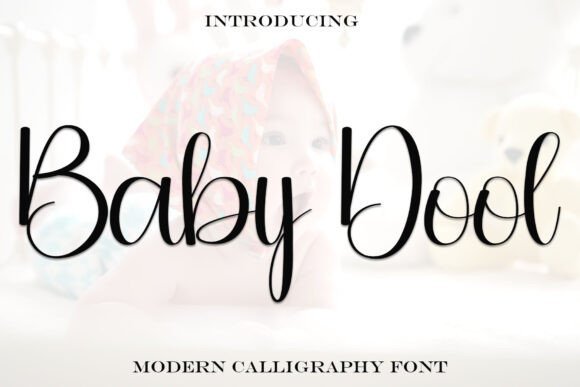
Discover the Timeless Charm of Baby Dool Font
As designers, we’ve all been there – staring at a blank canvas, struggling to find the perfect font to bring our vision to life. And then, like a breath of fresh air, we stumble upon the perfect match. For those seeking a handwritten font that exudes elegance and sophistication, Baby Dool Font is the answer to our prayers.
Baby Dool Font is a trendy, handwritten font that embodies the perfect blend of classic calligraphy and modern style. Its impeccable form and contemporary atmosphere make it the ideal choice for designers looking to add a touch of refinement to their projects. Whether you’re crafting a wedding invitation, a branding campaign, or a social media post, Baby Dool Font is sure to elevate your design to new heights.
Baby Dool Font Key Features
- Font Family: Baby Dool Font is a unique, hand-drawn font designed for various applications, including invitations, greeting cards, and children’s books.
- Unique Characteristics: Baby Dool Font features whimsical, hand-drawn characters with a playful and childlike feel, perfect for creating a nostalgic or vintage look.
Baby Dool Font Review
Overall, I think the Baby Dool Font is a cute and playful choice for projects that need a whimsical touch. ✨ The rounded edges and childlike feel make it perfect for children’s books, nursery decor, or any project that aims to bring a sense of innocence and wonder.
- ✨ Unique character shapes and forms make it easy to distinguish between letters and numbers.
- ✨ The font has a distinct personality that can help add character to your designs.
- ✨ Great for creating hand-drawn or handwritten effects.
- ⚠️ Limited font sizes and styles may not be suitable for large-scale text or complex layouts.
- ⚠️ The font may not be as readable in smaller sizes, making it less ideal for body text.
- ⚠️ Some characters may require additional styling to achieve the desired effect.
The Baby Dool Font is a fun and creative choice for designers who want to add a touch of playfulness to their projects. While it may have some limitations, it’s perfect for projects that need a unique and whimsical feel. With some careful styling and planning, this font can be a great addition to your design arsenal.
Tips for Getting the Most Out of Baby Dool Font
The Baby Dool Font is a versatile font that can be used for a variety of applications, including:
- Children’s books and educational materials
Some tips for getting the most out of the Baby Dool Font include:
- Using it in combination with bold or italic styles to add emphasis
- Experimenting with different font sizes and colors to create visual interest
- Pairing it with other fonts to create a unique and eye-catching design
Q: What is the character set for Baby Dool Font?
Baby Dool Font includes a comprehensive character set, including uppercase and lowercase letters, numbers, punctuation, and special characters. It also includes support for languages that use the Latin script, such as English, Spanish, French, and more.